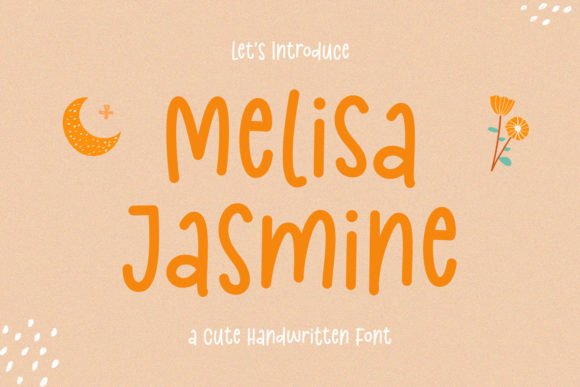
Prepare to be captivated by Melisa Jasmine, a whimsical and enchanting script font that will ignite your creativity and transport you to a realm of imagination. Its meticulously crafted curves and delicate flourishes will effortlessly elevate your designs, adding a touch of playful elegance that is sure to leave a lasting impression.
Immerse yourself in a world of limitless possibilities with Melisa Jasmine. Whether you're crafting invitations that evoke the innocence of childhood or designing marketing materials that demand attention, this extraordinary font will effortlessly elevate your vision. Its versatility extends from enchanting personal projects to captivating business endeavors, making it the perfect choice for those seeking to make a statement that resonates deeply.
Designed with the utmost care and attention to detail, Melisa Jasmine's charming script exudes warmth and friendliness. Its smooth, flowing lines create a captivating visual rhythm that draws the eye and sparks joy within the soul. Allow this enchanting font to amplify your message, whether it's a heartfelt note to a loved one or a compelling marketing campaign that captivates your audience.
Melisa Jasmine is more than just a font; it's a gateway to a world where creativity knows no bounds. Embrace its magic and witness the transformation of your designs into captivating masterpieces. Let its captivating curves inspire you to create works of art that ignite imaginations and leave an unforgettable mark on the world.